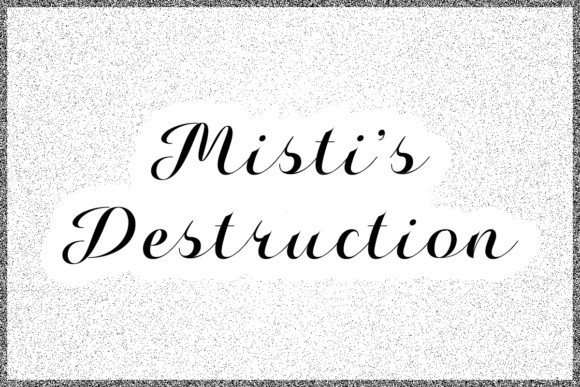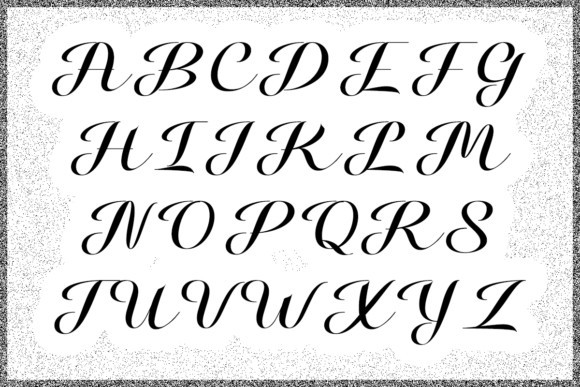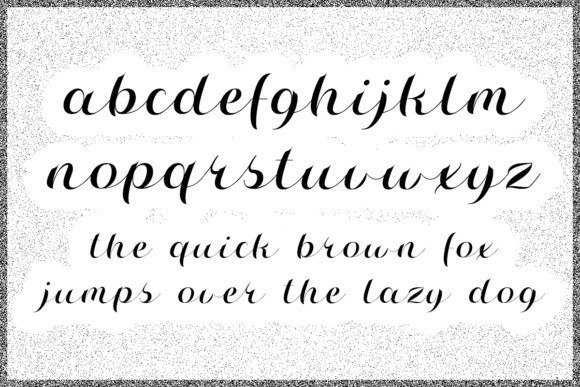
Misti’s Destruction Font
Misti’s Destruction is a stylish, calligraphy typeface that will add pizazz to your projects. Great for logos, product labels, invitations and so much more!